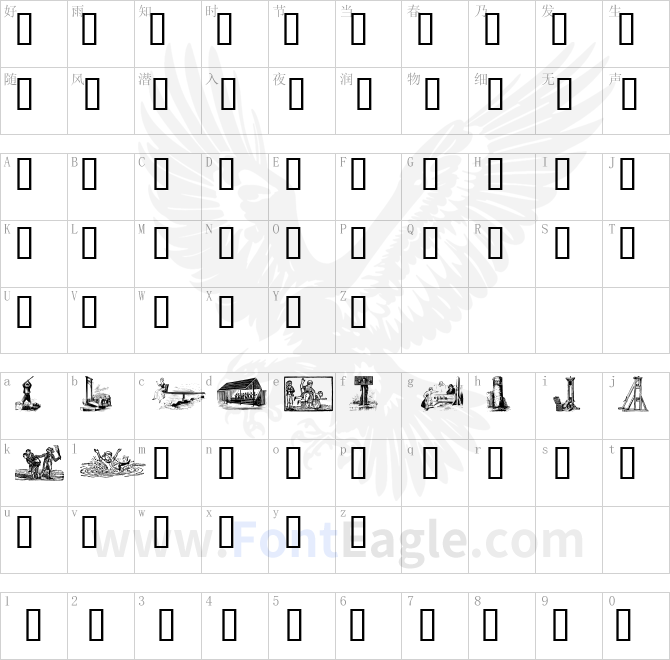
- Font name:crime and punishment
- Font Copyright:crime and punishment, digitized from a collection of 19th century, public domain woodcuts — 1997 by steven j. lundeen, emerald city fontwerks, seattle, wa, usa (manarts@seanet.com)